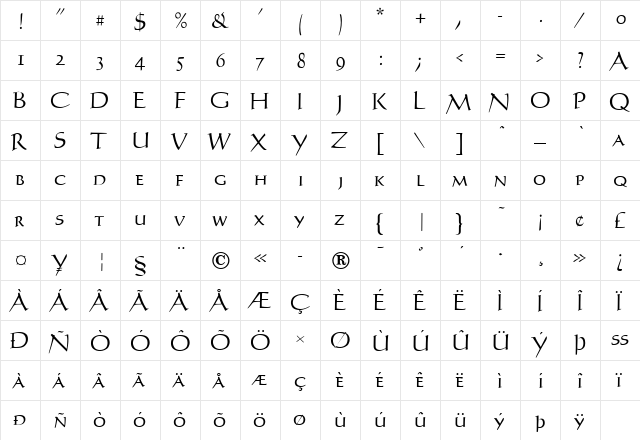
Humanist Medium
| Foundry | Copr. J rgen Brinckmann, FontShop International |
Design Context for Humanist Typeface
Humanist offers clean, dependable letterforms without strong stylistic allegiance, making it a practical choice for designers who need flexibility.